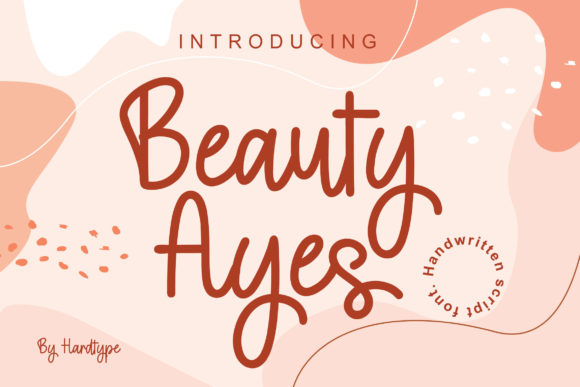
Introducing Beauty Ayes Font: The Ultimate Stylish Script Font for Your Designs
Are you tired of using the same old fonts in your designs? Look no further! Beauty Ayes Font is here to revolutionize the way you approach typography. This stunning script font is designed to add a touch of elegance and sophistication to any design project. With its clean, thin, and smooth vibe, Beauty Ayes Font is sure to be a hit with designers and crafters alike.
What Makes Beauty Ayes Font So Special?
Beauty Ayes Font is a stylish and delicate script font that boasts a unique and eye-catching aesthetic. Its slender lines and smooth curves create a beautiful, flowing script that’s perfect for a variety of design applications. Whether you’re working on a logo, branding project, or social media graphics, Beauty Ayes Font is sure to make your designs stand out from the crowd.
Key Features of Beauty Ayes Font
- Clean and Thin Design: Beauty Ayes Font features a clean and thin design that’s perfect for creating elegant and sophisticated designs.
- Smooth Vibe: The font’s smooth curves and lines create a beautiful, flowing script that’s easy on the eyes.
- Stylish and Delicate: Beauty Ayes Font is a stylish and delicate script font that’s perfect for adding a touch of elegance to your designs.
- Versatile: This font is versatile and can be used for a variety of design applications, including logos, branding, social media graphics, and more.
How to Use Beauty Ayes Font in Your Designs
Beauty Ayes Font is easy to use and can be incorporated into your designs in a variety of ways. Here are a few ideas to get you started:
- Logos and Branding: Use Beauty Ayes Font to create a stunning logo or branding project that showcases your company’s personality and style.
- Social Media Graphics: Add a touch of elegance to your social media graphics with Beauty Ayes Font. Use it to create eye-catching Facebook posts, Twitter headers, and Instagram stories.
- Wedding and Event Designs: Beauty Ayes Font is perfect for wedding and event designs, such as invitations, save-the-dates, and more.
- Packaging and Product Design: Use Beauty Ayes Font to add a touch of sophistication to your packaging and product designs.
Why Designers and Crafters Love Beauty Ayes Font
Designers and crafters love Beauty Ayes Font for its unique and stylish aesthetic. Here are a few reasons why:
- Elegant and Sophisticated: Beauty Ayes Font adds a touch of elegance and sophistication to any design project.
- Easy to Read: The font’s clean and thin design makes it easy to read, even at small sizes.
- Versatile: Beauty Ayes Font can be used for a variety of design applications, making it a great addition to any designer’s toolkit.
- High-Quality: This font is high-quality and comes with a range of features, including multiple language support and a range of diacritical marks.
Beauty Ayes Font is a stunning script font that’s perfect for designers and crafters looking to add a touch of elegance and sophistication to their designs. With its clean, thin, and smooth vibe, this font is sure to be a hit with anyone who uses it. Whether you’re working on a logo, branding project, or social media graphics, Beauty Ayes Font is a great choice. So why wait? Download Beauty Ayes Font today and start creating beautiful designs that showcase your unique style and creativity!